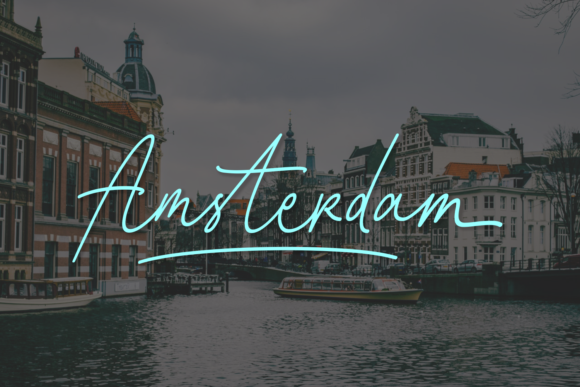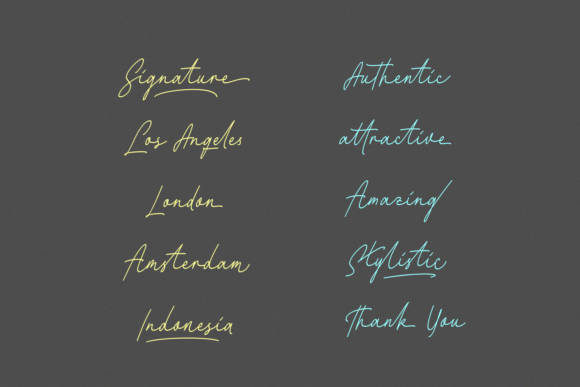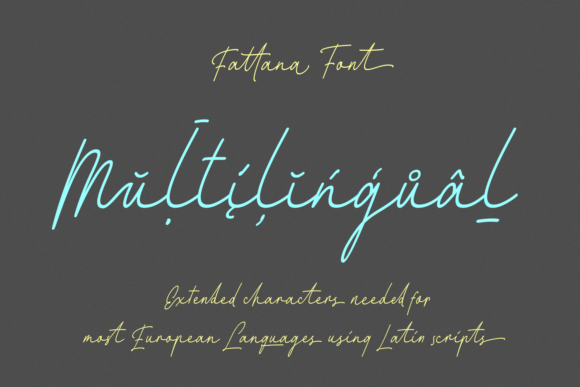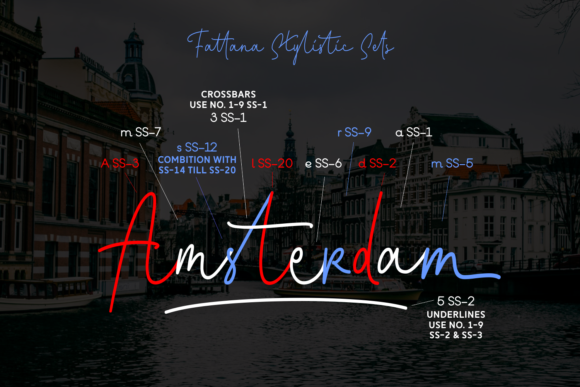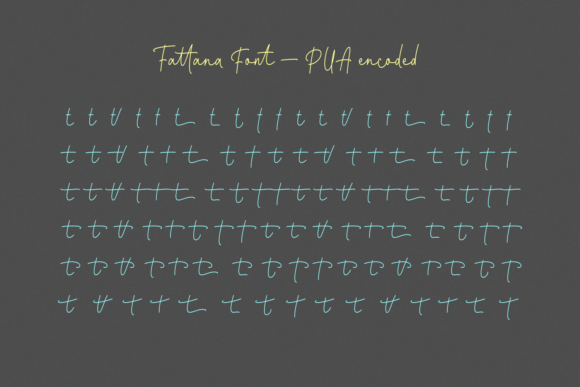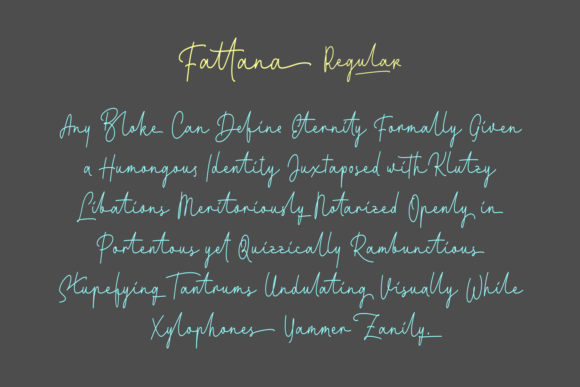
Fattana Font: Elevate Your Designs with Elegance and Sophistication
In the world of typography, fonts play a crucial role in conveying the tone and personality of a design. For designers and crafters looking to add a touch of elegance and sophistication to their work, the Fattana Font is an excellent choice. This wonderfully stylish signature font is perfect for use in headlines and editorial purposes, and its monoline and thin characteristics give designs a sleek appeal that is hard to resist.
What is Fattana Font?
Fattana Font is a modern, monoline signature font that exudes elegance and refinement. Its thin lines and sleek design make it perfect for use in a variety of design applications, from fashion and beauty branding to editorial and advertising projects. The font’s sophisticated appearance is sure to elevate any design, adding a touch of luxury and glamour.
Key Features of Fattana Font
- Monoline Design: Fattana Font features a monoline design, which means that the font is constructed from a single, flowing line. This gives the font a sleek and modern appearance that is perfect for designs that require a touch of sophistication.
- Thin and Elegant: The font’s thin lines and elegant design make it perfect for use in headlines and editorial purposes. The font’s subtle curves and refined lines add a touch of luxury to any design.
- Signature Style: Fattana Font has a signature style that is perfect for use in branding and advertising projects. The font’s unique and elegant design makes it stand out from other fonts, adding a touch of personality to any design.
- Versatile: Fattana Font is a versatile font that can be used in a variety of design applications, from print and digital media to branding and advertising.
Uses of Fattana Font
Fattana Font is perfect for use in a variety of design applications, including:
- Fashion and Beauty Branding: The font’s elegant and sophisticated design makes it perfect for use in fashion and beauty branding, adding a touch of luxury and glamour to any design.
- Editorial and Advertising: Fattana Font is perfect for use in editorial and advertising projects, such as magazine headlines, billboards, and print ads.
- Wedding and Event Design: The font’s elegant and refined design makes it perfect for use in wedding and event design, adding a touch of sophistication and elegance to any design.
- Packaging and Product Design: Fattana Font can be used in packaging and product design, adding a touch of luxury and sophistication to any product.
Why Choose Fattana Font?
There are many reasons why designers and crafters should choose Fattana Font for their design projects. Here are a few:
- Elegant and Sophisticated: Fattana Font is an elegant and sophisticated font that adds a touch of luxury and glamour to any design.
- Versatile: The font is versatile and can be used in a variety of design applications, from print and digital media to branding and advertising.
- Easy to Read: Despite its thin lines, Fattana Font is easy to read, making it perfect for use in headlines and editorial purposes.
- Unique and Distinctive: The font’s unique and distinctive design makes it stand out from other fonts, adding a touch of personality to any design.
In conclusion, Fattana Font is a wonderfully stylish signature font that is perfect for use in headlines and editorial purposes. Its monoline and thin characteristics give designs a sleek appeal that is hard to resist. With its elegant and sophisticated design, versatility, and ease of use, Fattana Font is an excellent choice for designers and crafters looking to add a touch of luxury and glamour to their work.